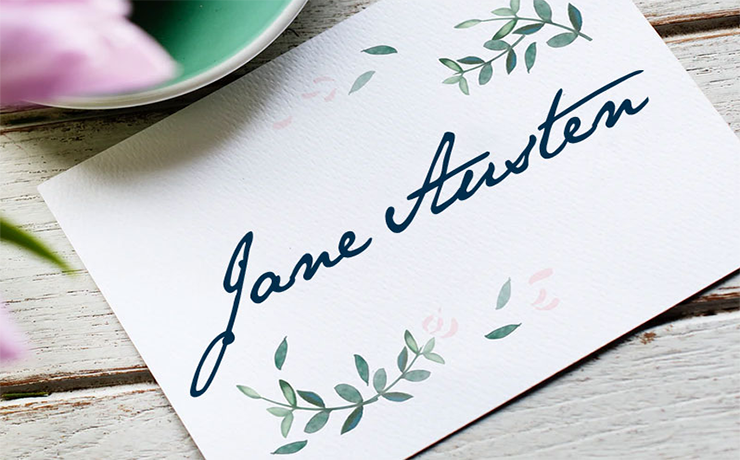
Jane Austen Font is a pretty script typeface that was designed using markers and real handwriting! It still has enough clarity to be legible, readable, and suitable for signature, logos, apparel, social media, etc.
Jane Austen Font, by Pia Frauss, 2010. A font based on Jane Austen’s handwriting was designed as a tribute to the author.
He has taken inspiration from the delicious homemade apple pie to create this beautiful font. For this reason, it has the structure of an elegantly crafted handwriting script just to give a personal feel.
Each letter is designed with a unique and special mindset that makes it more amazing than the others. So, with the help of this wonderful font, you can create sweet designs.
Look at the style of this font in the image that how can be magnificent for your design.
It is well suited for logos, headers, invitation cards, signature, greeting cards, cosmetics, posters and typography art, and other creative projects.